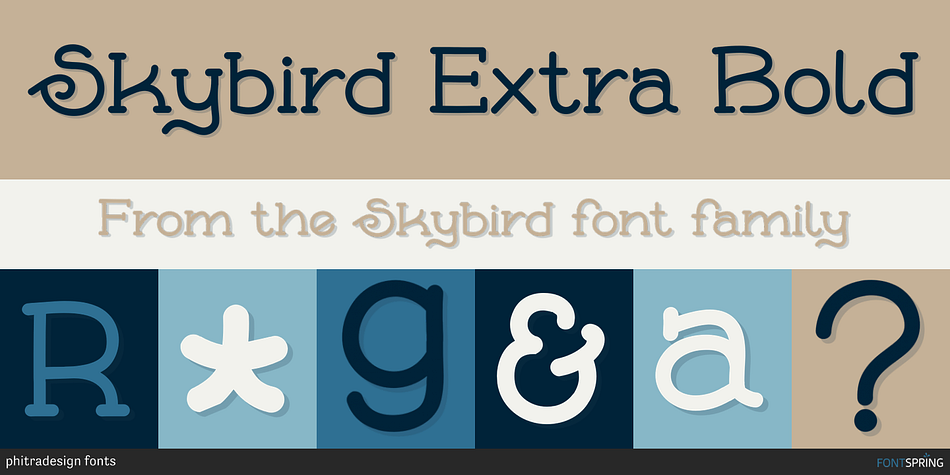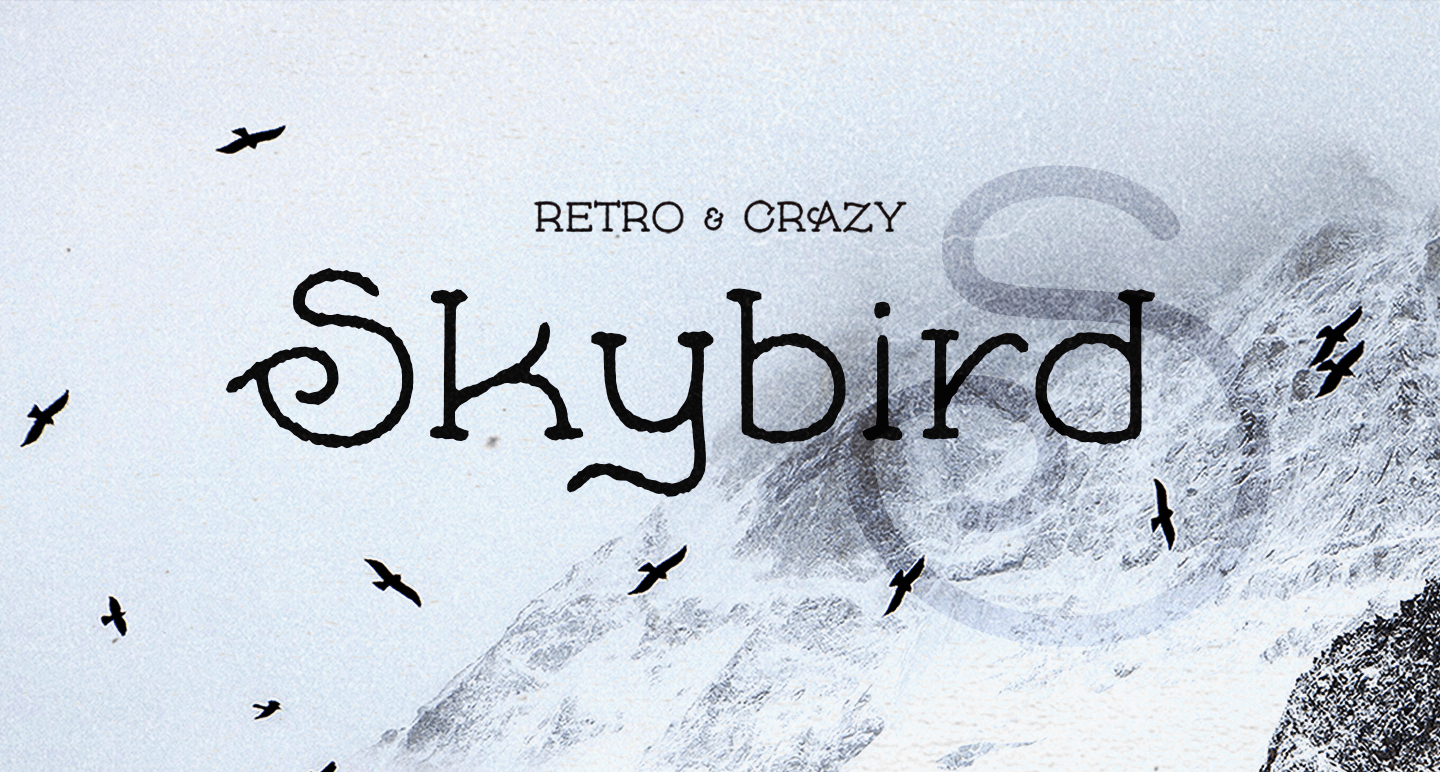
Skybird Extra Bold
Designed by Philip Trautmann, Skybird is a hand display font family. This typeface has twelve styles and was published by phitradesign fonts.
Skybird is a new crazy serif font.
Skybird is a new crazy serif font. Its unique glyph designs make it a special retro font. It comes in 5 different weights with matching italics and a rough version with italics.
The glyphs written in small letters are looking normal, but try to write just in caps to get the real crazy nature and fresh style of the font. Hope you like it!
Foundry phitradesign fonts
Designer Philip Trautmann